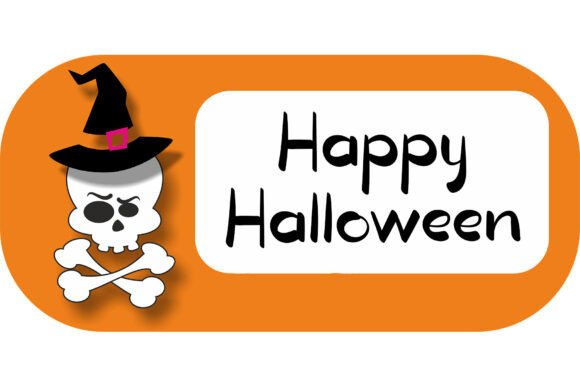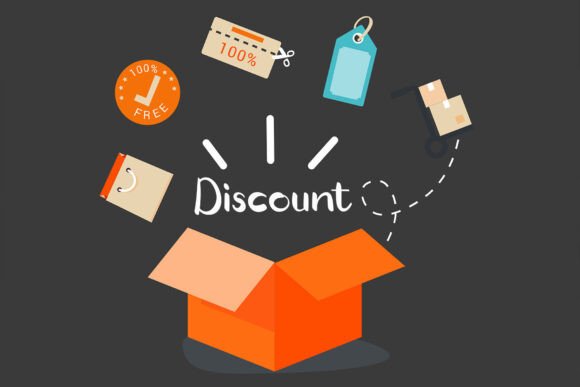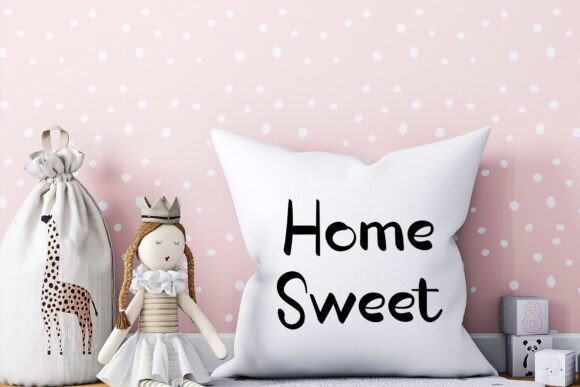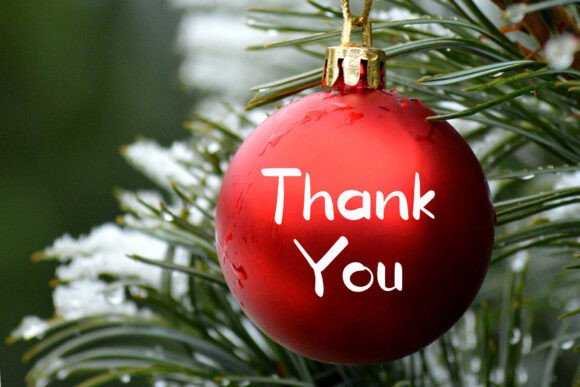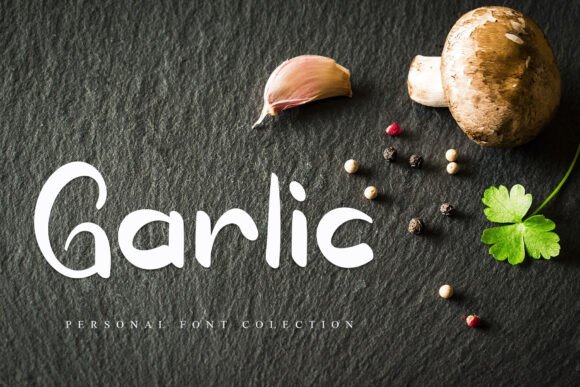
Introducing Garlic Font: Elevate Your Designs with Elegance
Are you on the hunt for a font that adds a touch of sophistication and uniqueness to your projects? Look no further than Garlic Font, a beautifully crafted typeface designed to make your work stand out. Whether you’re a designer, crafter, or simply someone who appreciates the finer details, Garlic Font is the perfect addition to your creative toolkit.
A Professionally Crafted Font
Garlic Font is not just any ordinary font. It’s been meticulously designed with a professional hand touch, ensuring that every letter, every curve, and every line is a masterpiece. This attention to detail makes it an ideal choice for projects where presentation is everything. From wedding invitations to birthday cards, and from school assignments to important events, Garlic Font brings a level of elegance that’s hard to match.
One of the standout features of Garlic Font is its versatility. It’s incredibly adaptable, making it suitable for a wide range of applications. Here are just a few ideas to get you started:
- Wedding Invitations: Make your wedding invitations unforgettable with Garlic Font. Its elegant and sophisticated feel sets the tone for a beautiful ceremony.
- Birthday Cards: Add a personal touch to birthday cards with Garlic Font. It’s the perfect way to show you care.
- School Assignments: Stand out from the crowd with creative and visually appealing school assignments. Garlic Font can help you achieve that.
- Parties and Events: Whether it’s a baby shower, a graduation party, or any other celebration, Garlic Font can help you create stunning invitations and decorations.
Unleash Your Creativity
With Garlic Font, the possibilities are endless. Its unique and elegant design encourages you to think outside the box and apply your creativity in innovative ways. Here are some tips on how to make the most of Garlic Font:
- Mix and Match: Combine Garlic Font with other fonts to create a unique look that suits your project’s needs.
- Play with Sizes: Experiment with different font sizes to add emphasis and create visual hierarchy.
- Colors and Textures: Don’t be afraid to add colors and textures to your text. Garlic Font provides a great base for your creative experiments.
Why Choose Garlic Font?
In a world where presentation matters, Garlic Font gives you the edge you need. Here are a few reasons why it’s a great choice:
- Unique Design: Garlic Font’s distinctive design ensures your projects stand out from the crowd.
- Elegant and Sophisticated: It adds a touch of elegance and sophistication to any project.
- Versatile: Suitable for a wide range of applications, from personal projects to professional assignments.
Garlic Font is more than just a font; it’s a tool that can elevate your designs and make them more engaging. Its unique and elegant design, combined with its versatility and ease of use, makes it an excellent choice for designers, crafters, and anyone looking to add a touch of sophistication to their projects. So why wait? Explore the possibilities with Garlic Font today and take your designs to the next level.